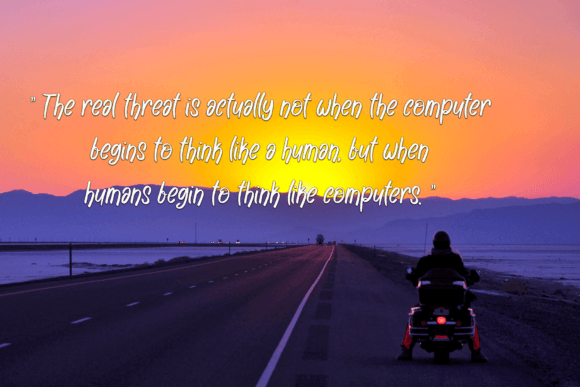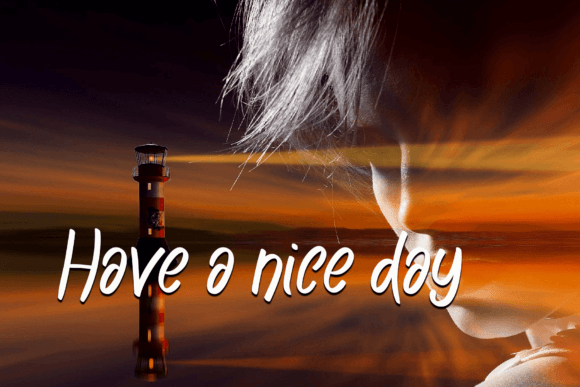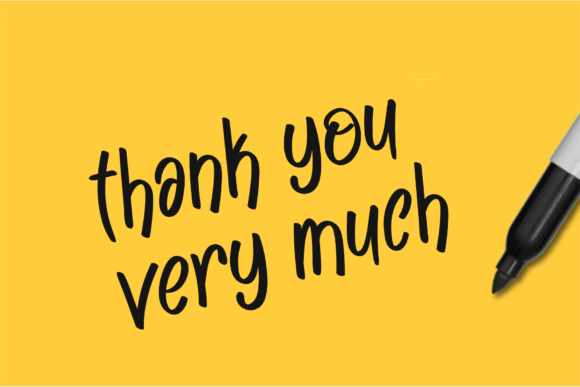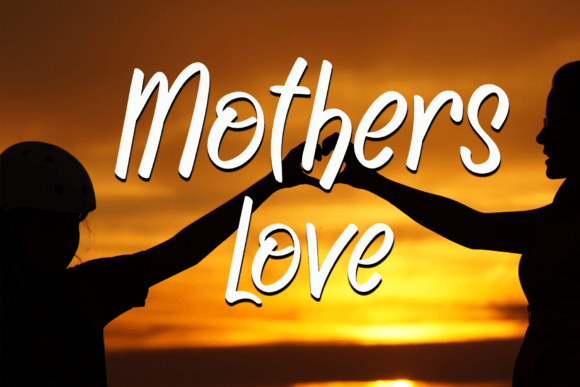
Black out Font
About Black out Font
“Black Out” is not just a font; it’s a magical handwritten script meticulously crafted to infuse your designs with a touch of elegance. This font has been carefully designed to transform your creative ideas into true works of art, whether you’re searching for the perfect font for Instagram posts or seeking calligraphy scripts for your DIY projects.
The enchantment of “Black Out” lies in its handwritten style, adding a personal and artistic touch to your designs. Each stroke is crafted with precision, creating a unique and captivating aesthetic that elevates the overall elegance of your creative endeavors.
Whether you’re crafting social media posts, designing invitations, or embarking on DIY projects, “Black Out” is a versatile font that transcends various design contexts. Its ability to seamlessly blend with different themes and applications makes it a go-to choice for those who seek both style and flexibility in their typography.
This font serves as more than just a typographic element; it becomes a key player in the visual storytelling of your designs. Its magical handwritten script is not just about letters; it’s about creating an immersive and captivating experience for your audience.
In summary, “Black Out” is an enchanting font that brings a touch of magic to your designs. Whether you’re a social media enthusiast or a DIY aficionado, let “Black Out” be the tool that transforms your creative ideas into true pieces of art. With its elegance and magical charm, this handwritten font invites you to add a dash of enchantment to your typography, turning every project into a visual masterpiece.